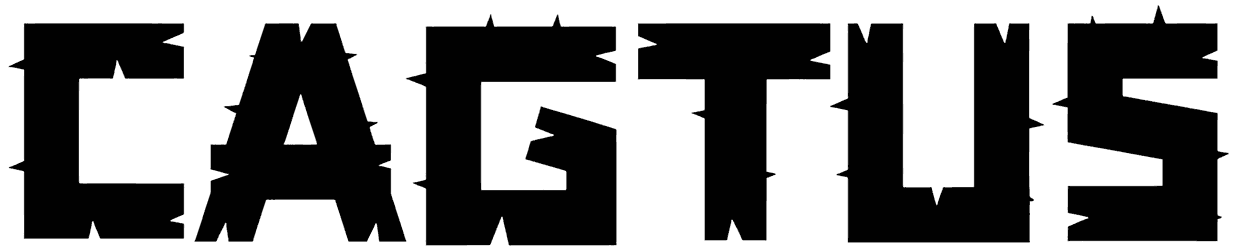
Mejiko font can be considered one of the cutest fonts. The reason is the fantasy design of the characters that attract any audience of any age. This Western font does not support numbers but instead has uppercase and lowercase characters that make your food plan colorful and cheerful.
Use different shapes such as spicy food, and wild Western clothes in your design to make it look amazing in your menu design.